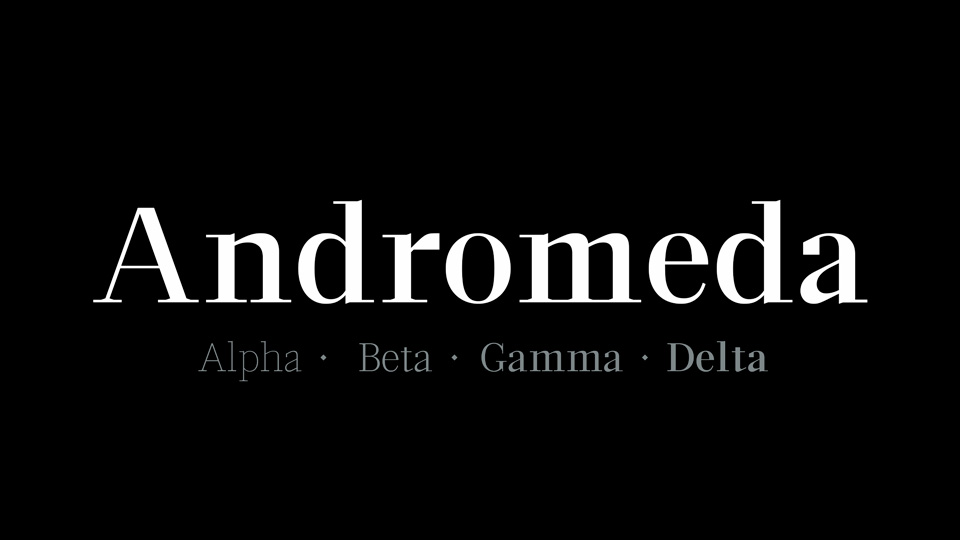
Download Andromeda typeface, a contemporary serif font family with high contrast and sharp forms. Andromeda is perfect for branding, advertising, editorial design and social media.
Designer: Laurent Müller